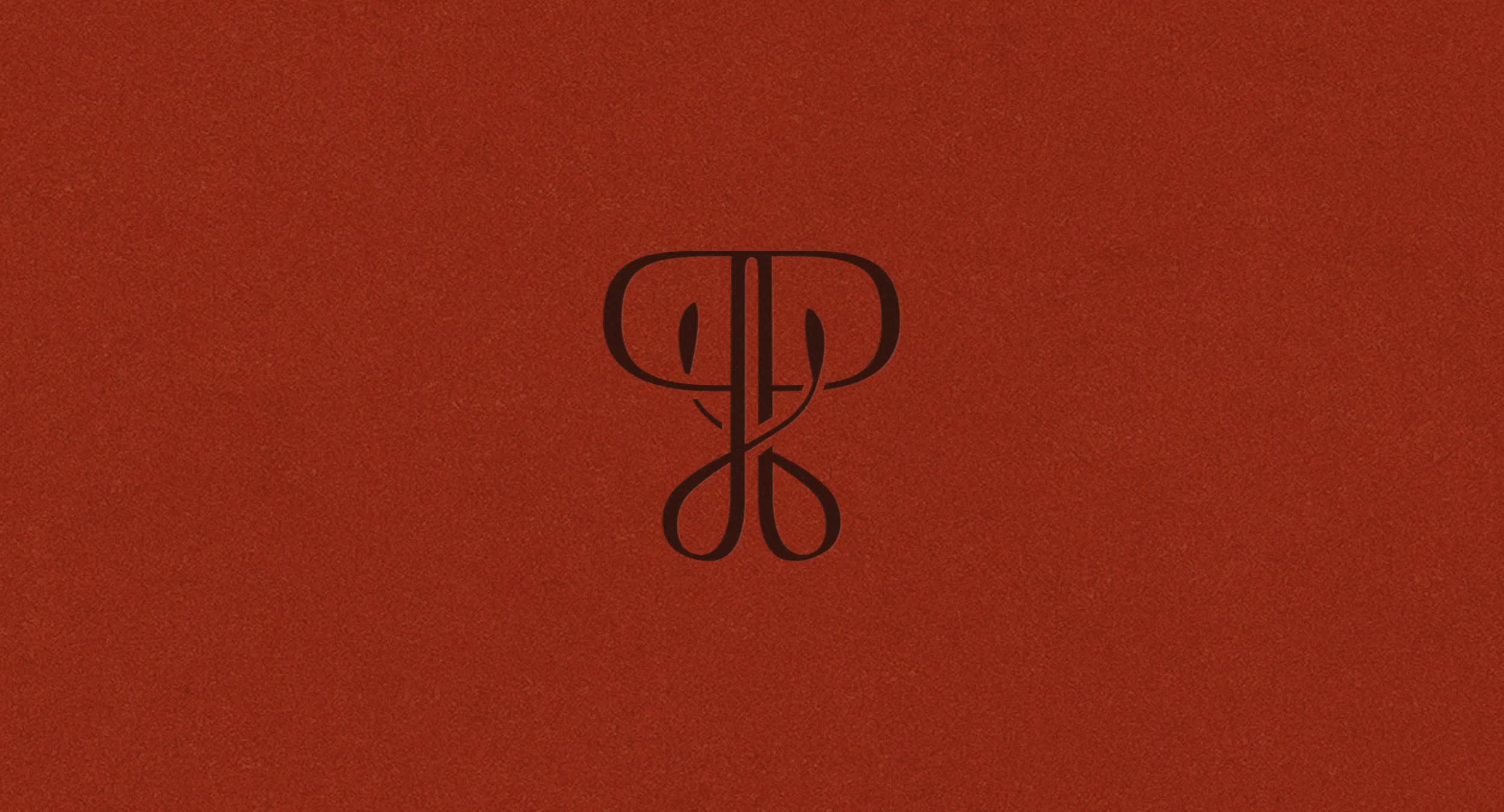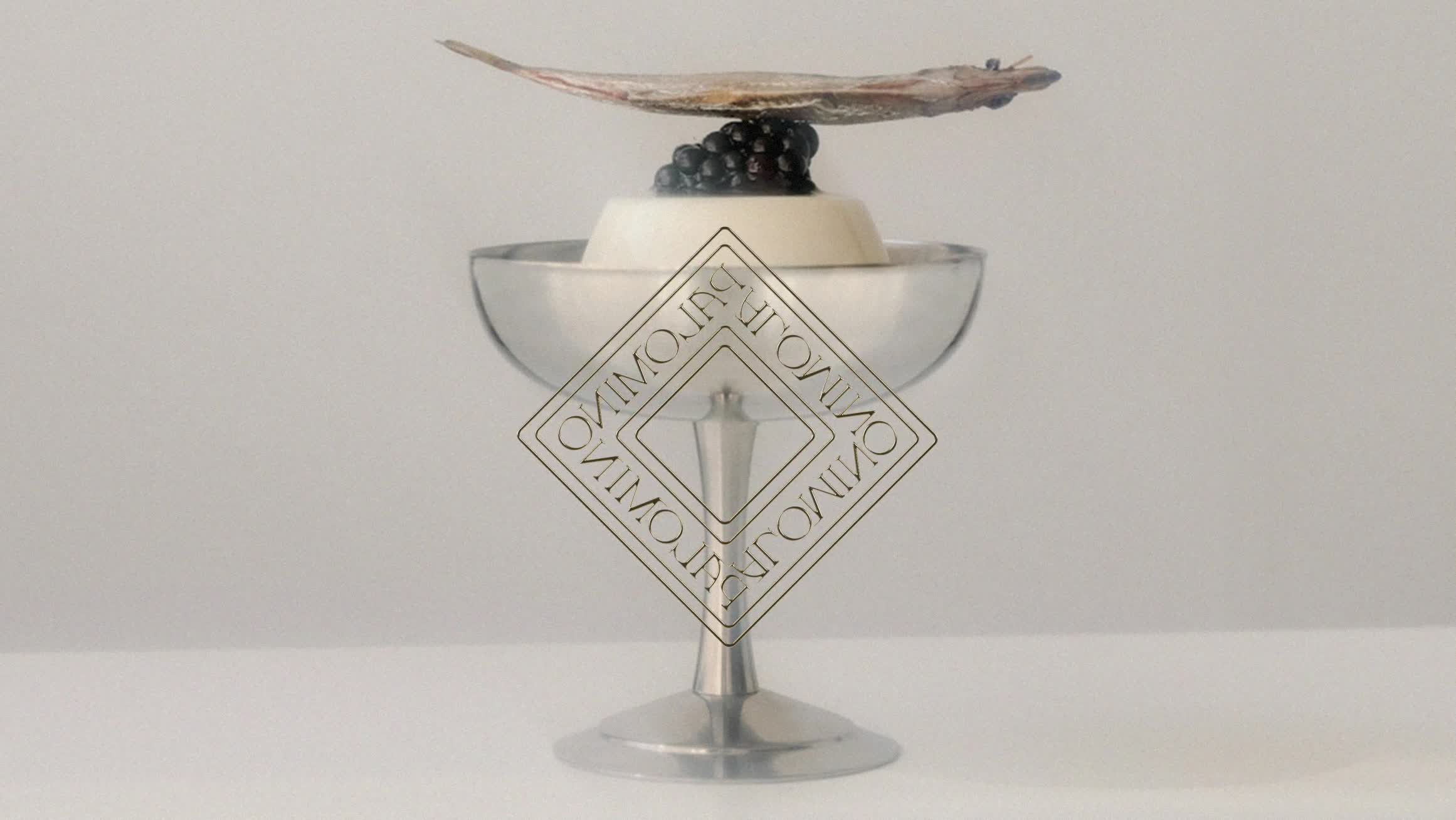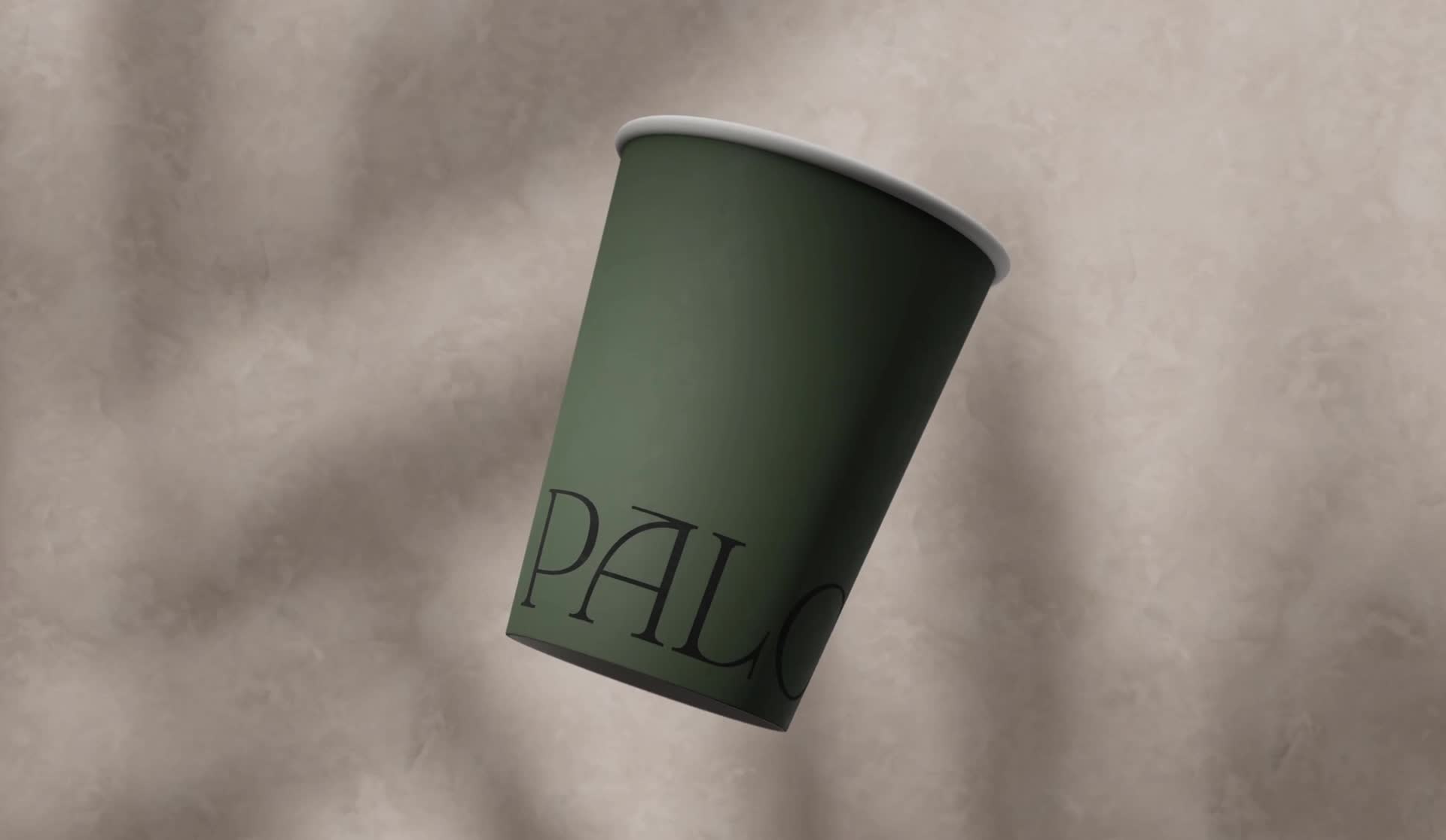
Palomino
Palomino uses Gestura Display for premium feel, then Termina to keep it approachable. The high-contrast serif does the heavy lifting while the sans fonts handle everyday copy. Blind embossing and foil stamping on print make it feel expensive without screaming luxury.